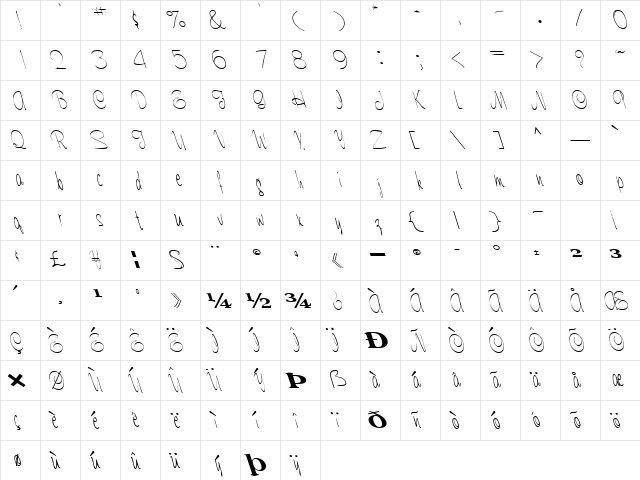
Un Regular
Design Context for Un Typeface
Un is a composed and adaptable typeface that performs quietly and consistently across a wide range of design contexts.
Pro Tip: Pair Un with a font of contrasting weight or personality to build a more expressive typographic hierarchy.